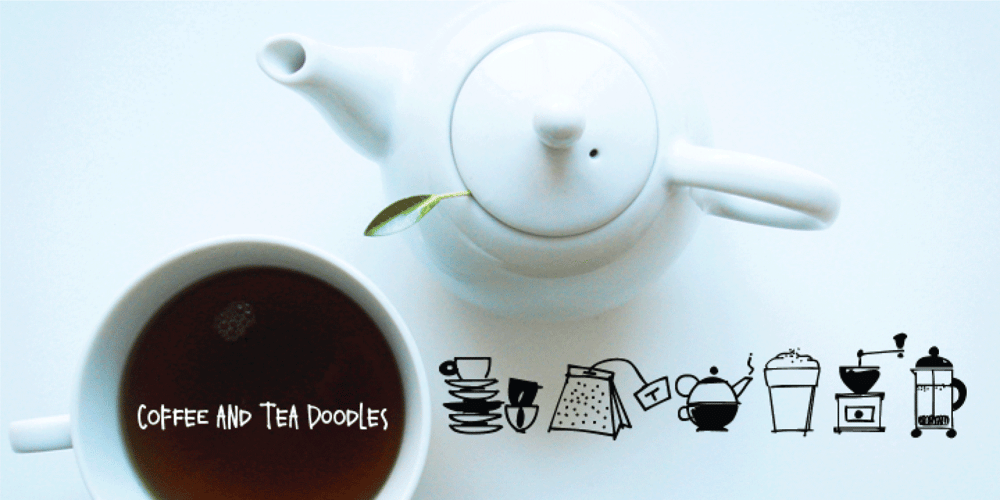
Coffee & Tea Doodles
Coffee & Tea Doodles font
Coffee & Tea Doodles Font Family was designed by Rae Kaiser and published by Outside the Line. Coffee & Tea Doodles contains 1 styles and family package options. Coffee and Tea Doodles are a font of coffee and tea things– beans, cups, drinks, tea bag, iced tea, tea sets etc. Perfect set of clip art for coffee or tea shop menus, ads, invitations, etc. Includes scripted words that include coffee, tea, coffee break and tea for 2.